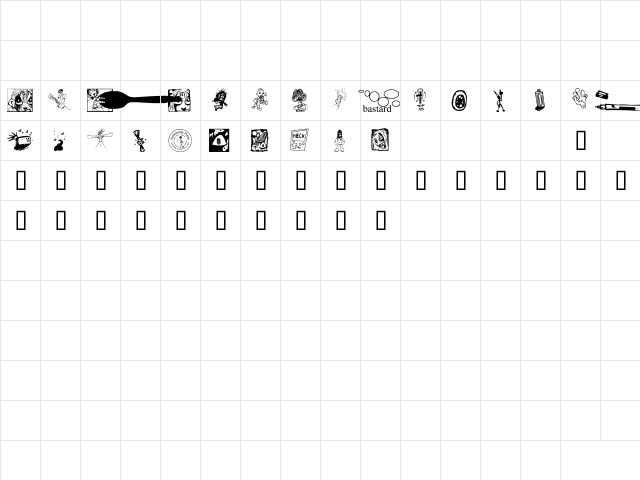
Sporkbats Two Regular
Design Context for Sporkbats Two Typeface
Sporkbats Two is a composed and adaptable typeface that performs quietly and consistently across a wide range of design contexts.